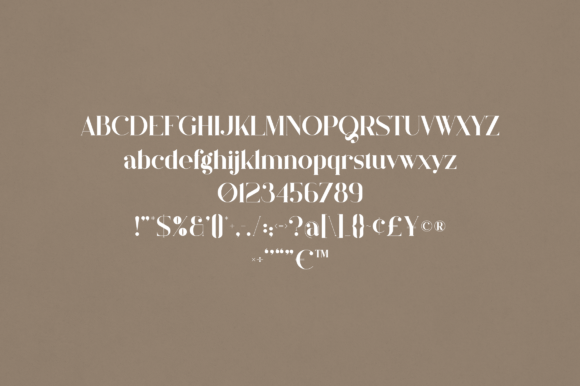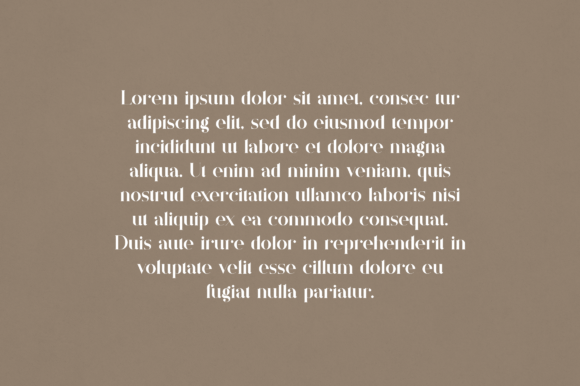
Introducing Gracie Font: Elevate Your Design with Elegance and Versatility
In the world of typography, a font can make or break a design. It’s the foundation upon which your creative vision is built, and it can either elevate or detract from your project’s overall impact. For designers and crafters seeking a typeface that exudes elegance, sophistication, and versatility, look no further than the Gracie Font. This stunning serif font is designed to make your typography truly unique, adding a touch of enchantment to every logo, branding element, headline, or plain text.
The Essence of Gracie Font
Gracie Font is an elegant and versatile serif typeface that is perfect for a wide range of design applications. Its classic serif structure lends a sense of tradition and reliability, while its refined lines and proportions inject a dose of modern sophistication. This beautiful font is designed to enchant every aspect of your design, whether you’re working on a logo, branding project, headline, or simply adding a stylish text overlay to a background image.
One of the standout features of Gracie Font is its incredible versatility. It’s a font that can seamlessly transition across various design projects, including:
• Branding Projects: Establish a strong and elegant brand identity with Gracie Font. Its sophisticated appearance makes it ideal for creating memorable logos, business cards, and letterheads.
• Home-Ware Designs: Add a touch of elegance to your home-ware designs, such as product packaging, labels, and advertisements, with the Gracie Font’s refined and classic aesthetic.
• Product Packaging: Elevate your product packaging with a font that exudes luxury and sophistication. Gracie Font is sure to make your products stand out on crowded store shelves.
• Magazine Headers: Create stunning magazine headers and titles with Gracie Font. Its elegant appearance is sure to capture readers’ attention and set the tone for your publication.
• Text Overlays: Use Gracie Font as a stylish text overlay for any background image. Its versatility ensures that it will complement a wide range of images and textures.
Why Choose Gracie Font?
With so many fonts available, why should you choose Gracie Font for your next design project? Here are just a few compelling reasons:
• Unique and Memorable: Gracie Font’s elegant and refined design ensures that your typography will be truly unique and memorable.
• Highly Versatile: This font can be used across a wide range of design projects, from branding and packaging to magazine headers and text overlays.
• Easy to Read: Despite its elegant appearance, Gracie Font remains highly legible, making it perfect for both headings and body text.
• Timeless Appeal: The classic serif design of Gracie Font ensures that it will remain timeless and relevant, even as design trends evolve.
Font Name Gracie Font
Author vladfedotovv
In conclusion, Gracie Font is an exceptional serif typeface that offers a perfect blend of elegance, versatility, and sophistication. Whether you’re a designer looking to elevate your branding projects or a crafter seeking a stylish font for your home-ware designs, Gracie Font is an excellent choice. Its unique and memorable design, combined with its high versatility and timeless appeal, make it an invaluable addition to any designer’s toolkit. So why wait? Discover the enchanting world of Gracie Font today and take your typography to new heights!
• Elegant and versatile serif font
• Perfect for branding projects, home-ware designs, product packaging, magazine headers, and text overlays
• Unique and memorable design
• Highly legible and easy to read
• Timeless appeal